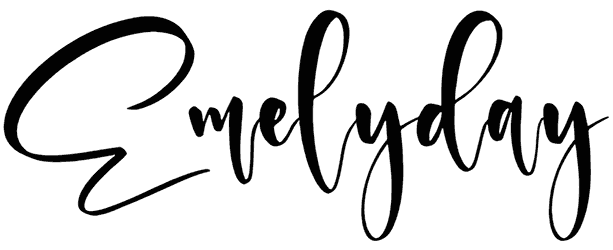
Emelyday Font
Elegant, friendly, and casual, Emelyday is a calligraphy font that comes with a full set of characters, but its cursive structure makes it unreadable. This script font has an organic feel based on handwriting with a fountain pen, which adds a modern touch to your design and can be a perfect choice for branding, product packaging, watermarks, signatures, and advertisements.